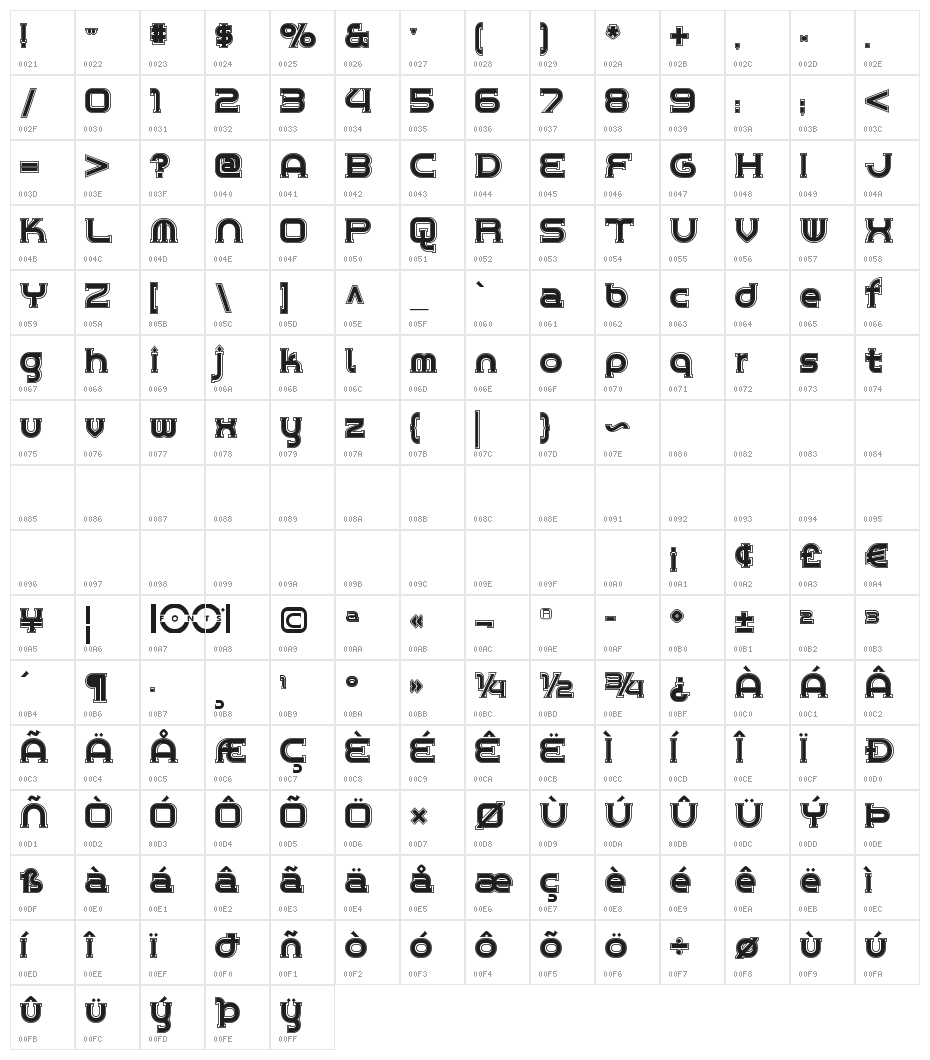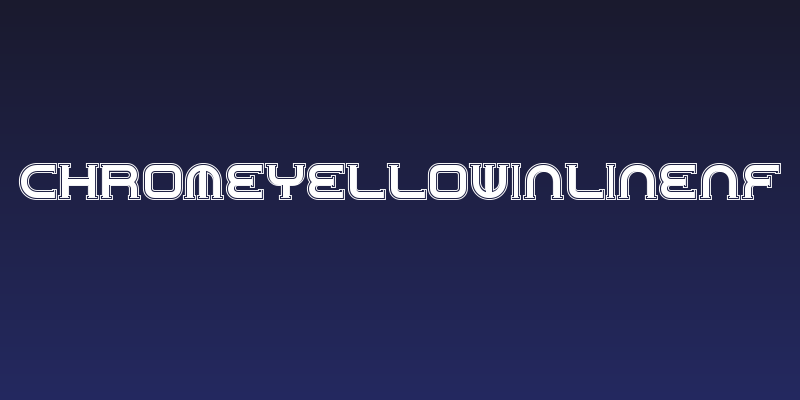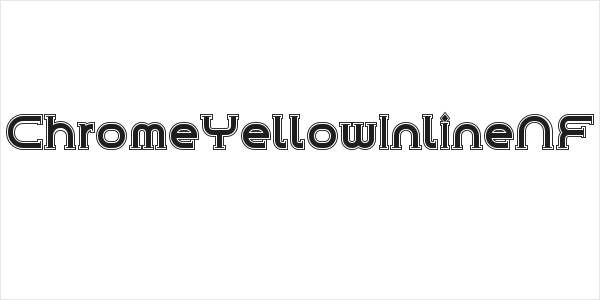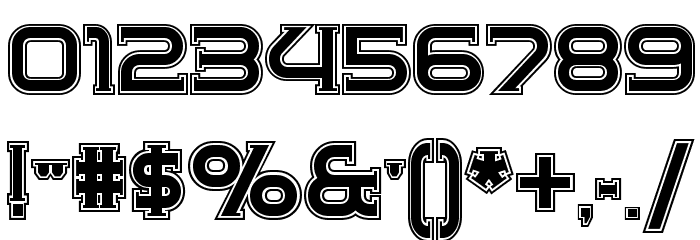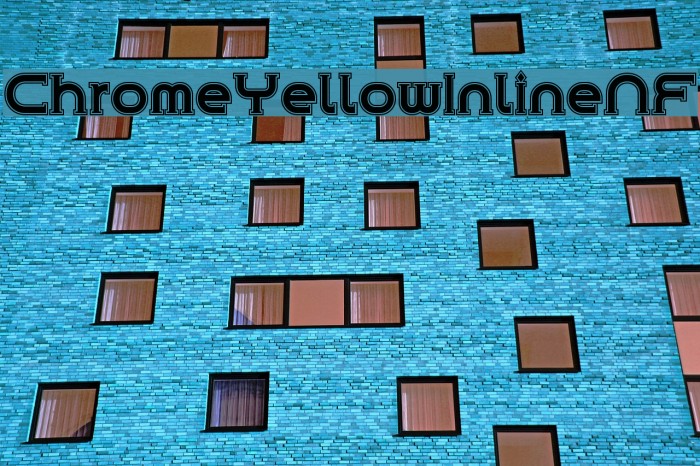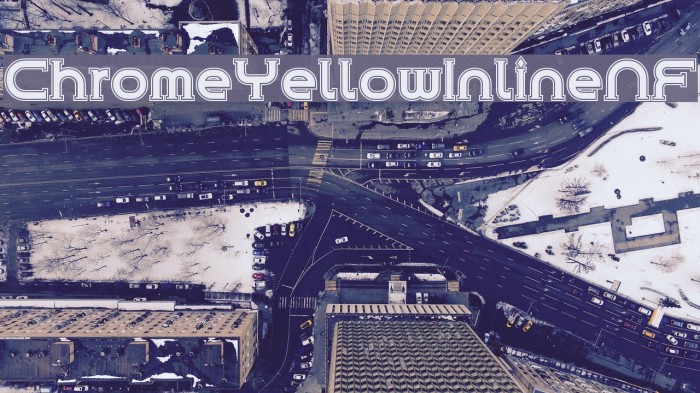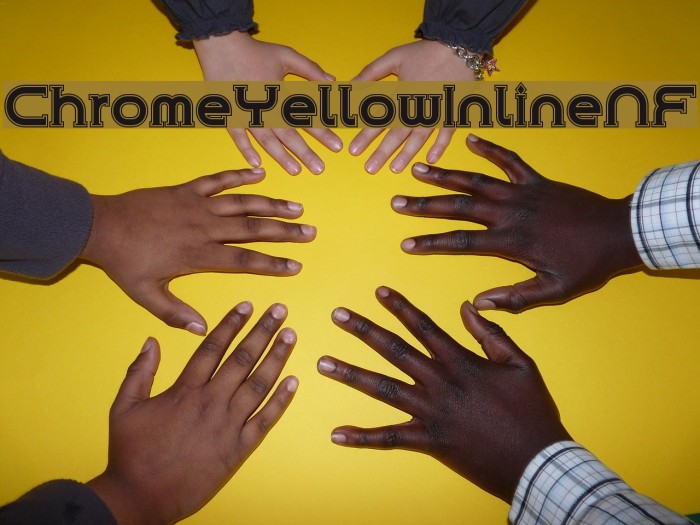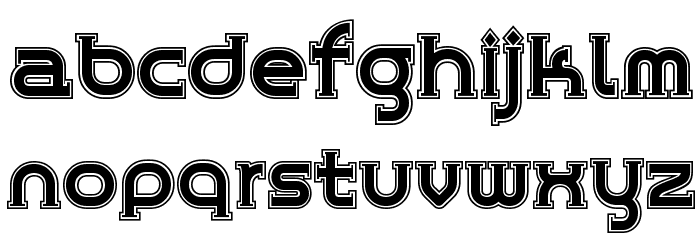
ChromeYellowInlineNF Font
ChromeYellowInlineNF Description
This font features a bold, decorative style with a distinct inline design that adds depth and dimension to each character. The uppercase and lowercase letters are consistent in their geometric structure, with a slight retro flair. The numerals and special characters maintain the same aesthetic, ensuring uniformity across all glyphs. The inline detail creates a striking visual effect, making it ideal for eye-catching designs. The font's overall appearance is both modern and vintage, offering versatility for various creative projects.